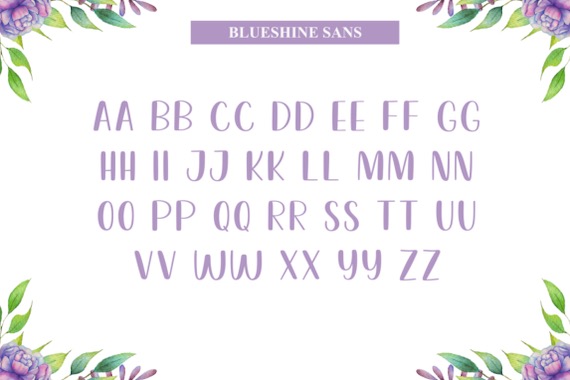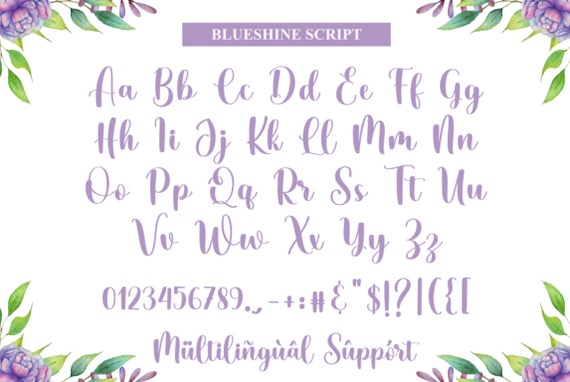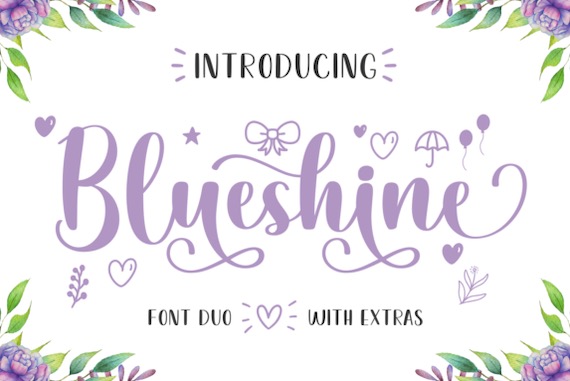
Blushine is a sweet and classy font duo (is a great combination of a gorgeous handwritten and classy sans serif style). This refined font was created and shared by Kammaqsum. It maintains its classy calligraphic influences while feeling contemporary and fresh. Fall in love with it and bring your projects to the highest levels!
Blueshine Script Sans Font Duo